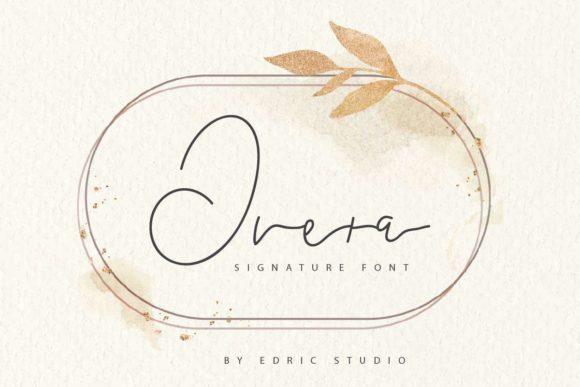
Overa Font
Prepare to be mesmerized by Overa, a script font that's as classic as it is captivating. EdricStudio has taken the timeless essence of traditional typography and infused it with a contemporary flair, resulting in a font that's both familiar and utterly unique.
Picture this: the elegance of a bygone era, seamlessly blended with the vibrancy of modern design. That's the power of Overa. Its graceful curves and sweeping strokes evoke a sense of nostalgia, while its subtle contemporary touches give it an undeniable freshness.
Overa is not just a font; it's a versatile chameleon that adapts effortlessly to any design canvas. Its carefully crafted characters can transform ordinary text into captivating headlines that demand attention. Whether you're crafting web designs, print materials, or eye-catching animations, Overa will elevate your creations to new heights of visual appeal.
Don't just take our word for it. Imagine your designs adorned with Overa's timeless charm. Envision the impact it will have on your audience, drawing them in with its undeniable allure. Overa is not just a font; it's a gateway to a world of design possibilities, where classic elegance meets modern sophistication.